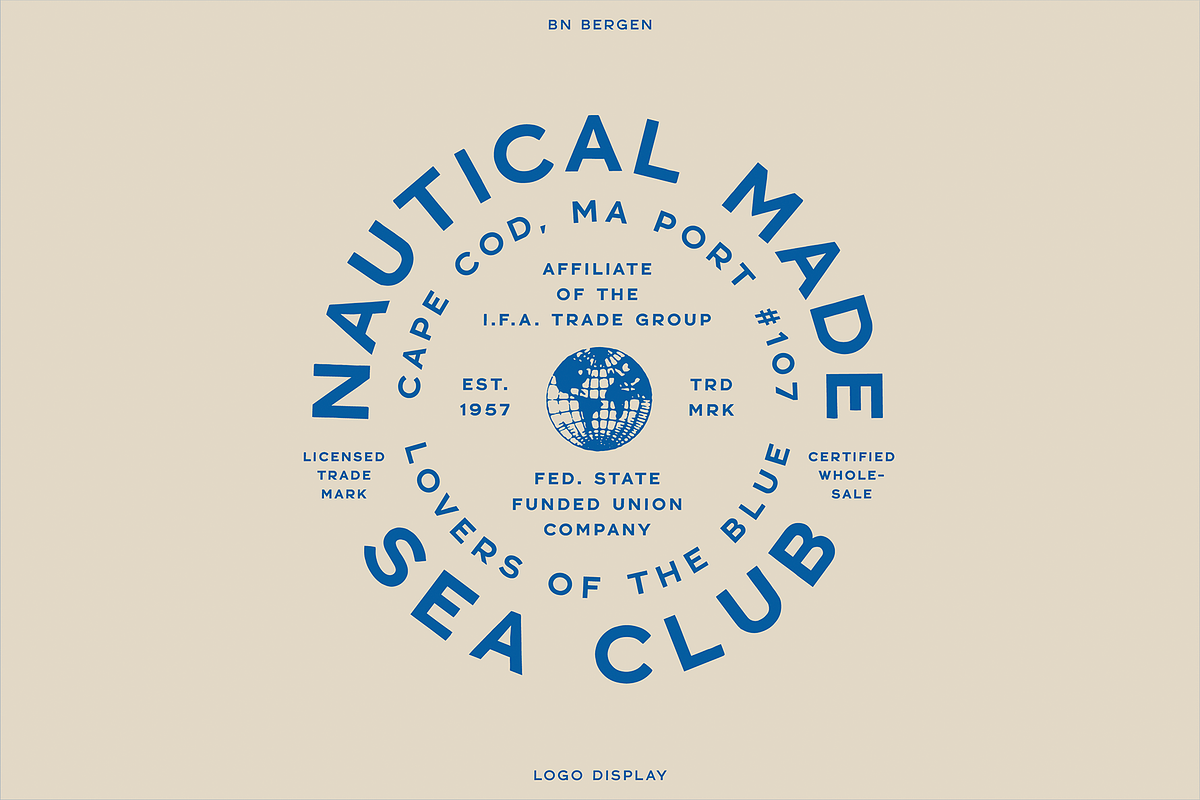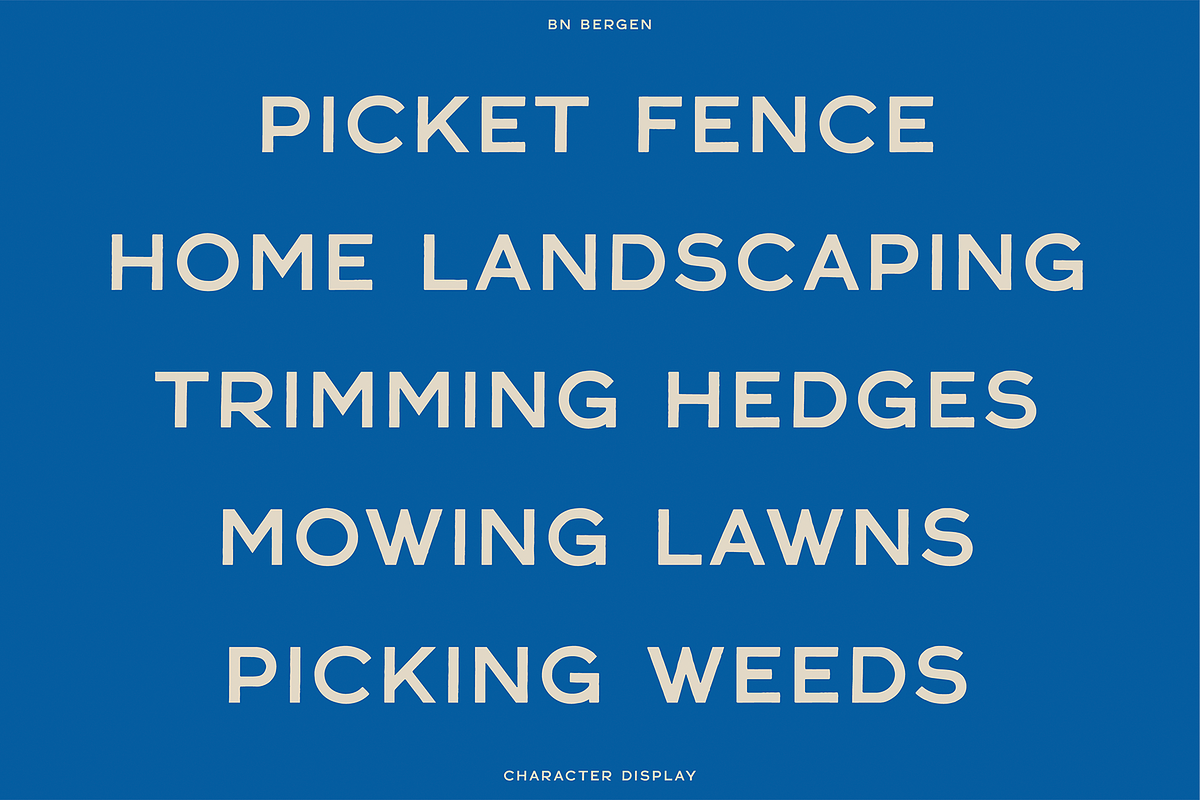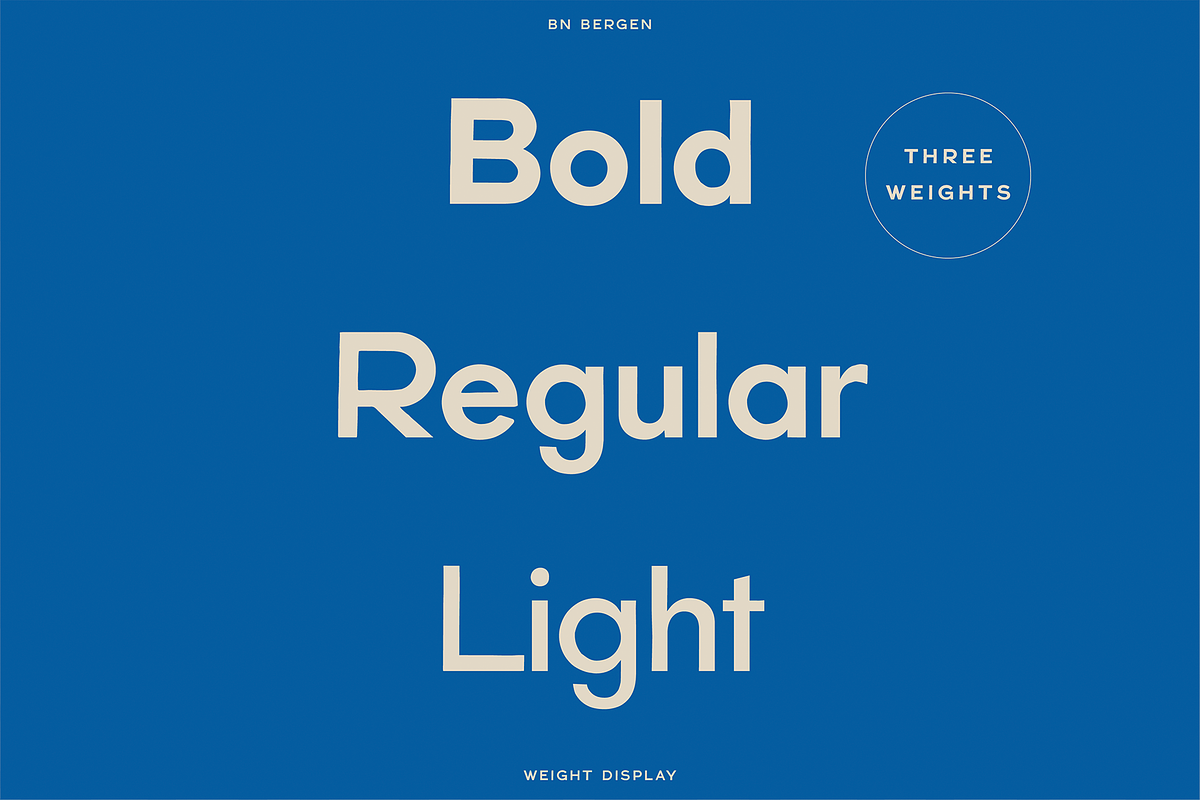
Introducing BN Bergen! A hand-drawn sans serif typeface that comes in 3 weights! Using a modern geometric form (and cousin to BN Hamburg Hand) BN Bergen is perfect for most all aspects of graphic design from creating a unique display layout, to industrial logo designs! Take a look at the display images for a list of the glyphs included!